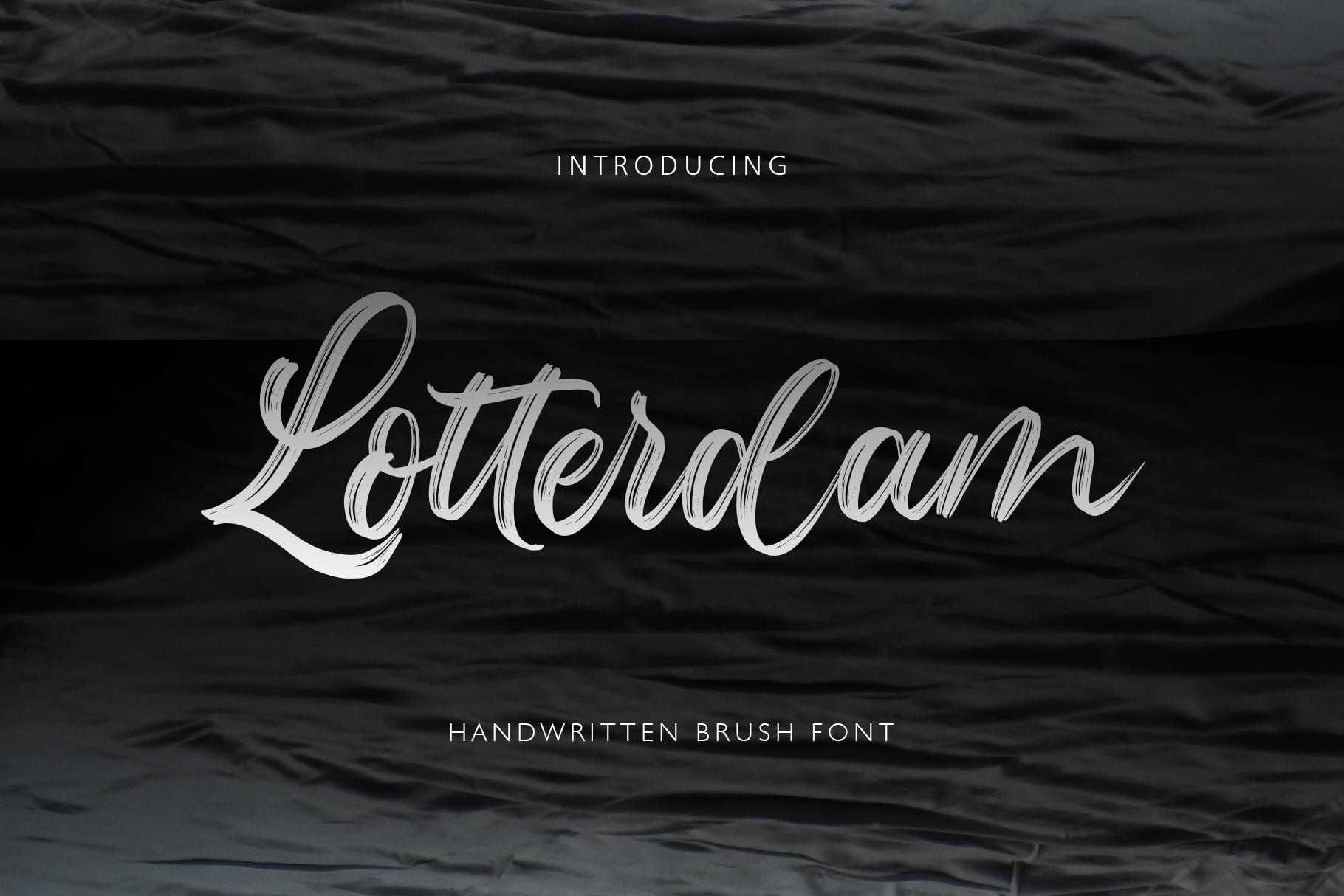
Lotterdam Font Description
Lotterdam is a cursive and beautiful hand brushed font. It looks lovely on quotes, greeting cards, logos, business cards and every other design which needs a personalized touch. This font is PUA encoded which means you can access all of the glyphs and swashes with ease!